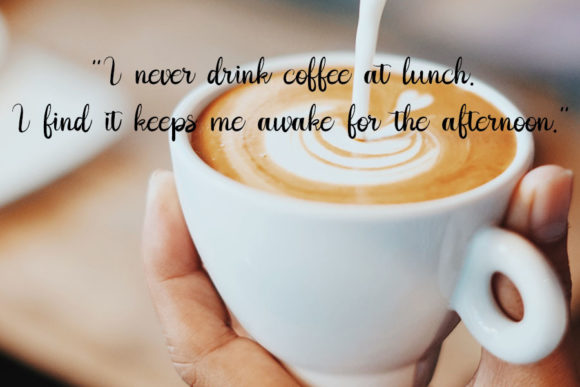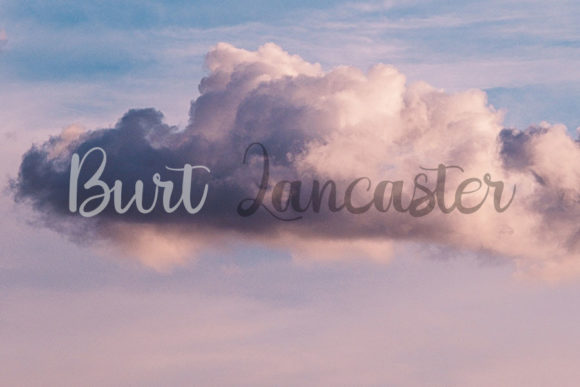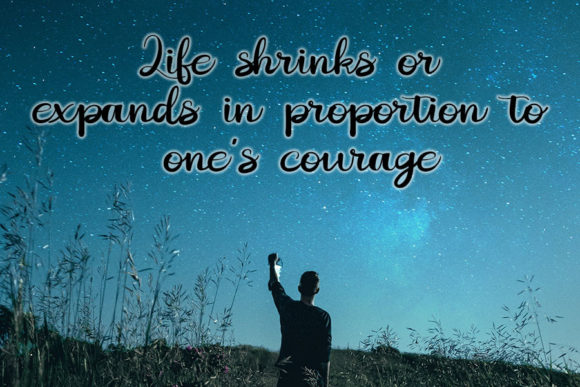
DreamTeam Font: Elevate Your Designs with Elegance and Sophistication
Are you on the hunt for a font that exudes class, sophistication, and a touch of modern flair? Look no further than the DreamTeam Font, a stunning handwritten typeface that is sure to capture your heart. Designed with meticulous attention to detail, DreamTeam seamlessly blends traditional calligraphic influences with a contemporary twist, making it the perfect addition to your design arsenal.
The Essence of DreamTeam Font
DreamTeam is more than just a font – it’s an exquisite piece of art that brings a level of elegance and refinement to any project. Its masterful design ensures that it stands out from the crowd, offering a unique and distinctive look that is sure to leave a lasting impression. Whether you’re working on a branding project, crafting a beautiful wedding invitation, or creating engaging content for your blog, DreamTeam Font is the perfect choice.
Key Features of DreamTeam Font
- Classy Calligraphic Influences: DreamTeam’s roots in traditional calligraphy are evident in its fluid strokes and elegant letterforms, adding a touch of sophistication to your designs.
- Contemporary and Fresh: Despite its classic influences, DreamTeam feels modern and current, ensuring that your designs don’t feel dated or stale.
- Versatility: From logos and branding to invitations, packaging, and digital content, DreamTeam’s versatility knows no bounds.
- Easy to Read: Despite its elegant nature, DreamTeam remains highly legible, making it suitable for both headings and body text.
Who Can Benefit from DreamTeam Font?
DreamTeam Font is a valuable asset for a wide range of designers and crafters, including:
- Graphic Designers: Looking for a sophisticated font to elevate their branding and advertising projects.
- Stationery Designers: Creating beautiful wedding invitations, greeting cards, and other stationery items.
- Digital Content Creators: Seeking a elegant and modern font for their blogs, social media, and online publications.
- Crafters and Small Business Owners: Needing a high-quality font to enhance their packaging, labels, and marketing materials.
Tips for Using DreamTeam Font Effectively
To get the most out of DreamTeam Font, consider the following tips:
- Pair with Complementary Fonts: Combine DreamTeam with simpler sans-serif fonts to create visual interest and hierarchy.
- Experiment with Colors: DreamTeam looks stunning in a variety of colors, from rich blacks and deep berry tones to soft pastels.
- Play with Sizes: Use DreamTeam in a range of sizes to create visual emphasis and add depth to your designs.
In conclusion, DreamTeam Font is a true gem that deserves a spot in every designer’s toolkit. Its exquisite handwritten design, classy calligraphic influences, and contemporary feel make it the perfect choice for a wide range of projects. Whether you’re a seasoned designer or a crafty DIY enthusiast, DreamTeam Font is sure to elevate your designs to new heights. So why wait? Fall in love with DreamTeam and bring your projects to life with elegance and sophistication!